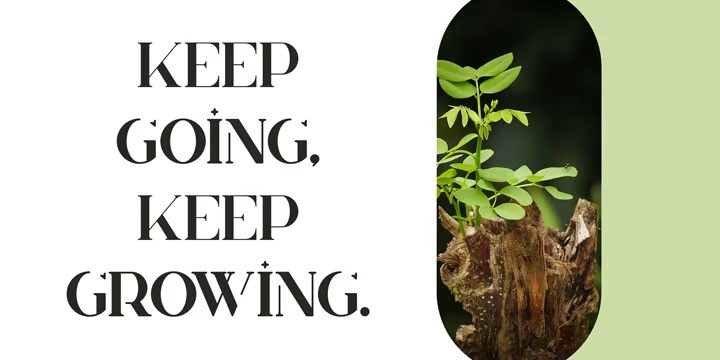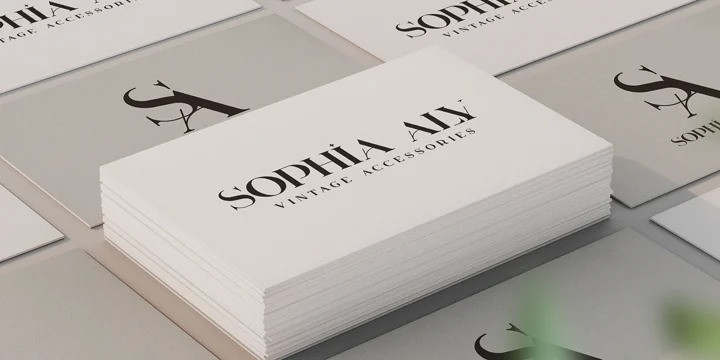
Nordic Font
Nordic Sans Serif  Font, It can easily be matched to an incredibly large set of projects, so add it to your creative ideas and notice how it makes them stand out!